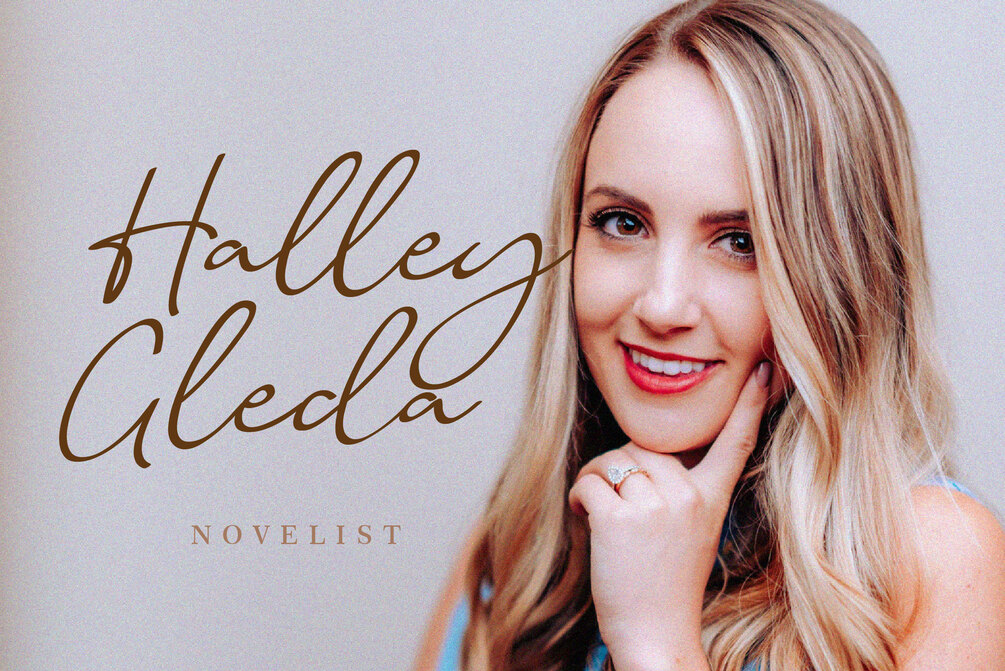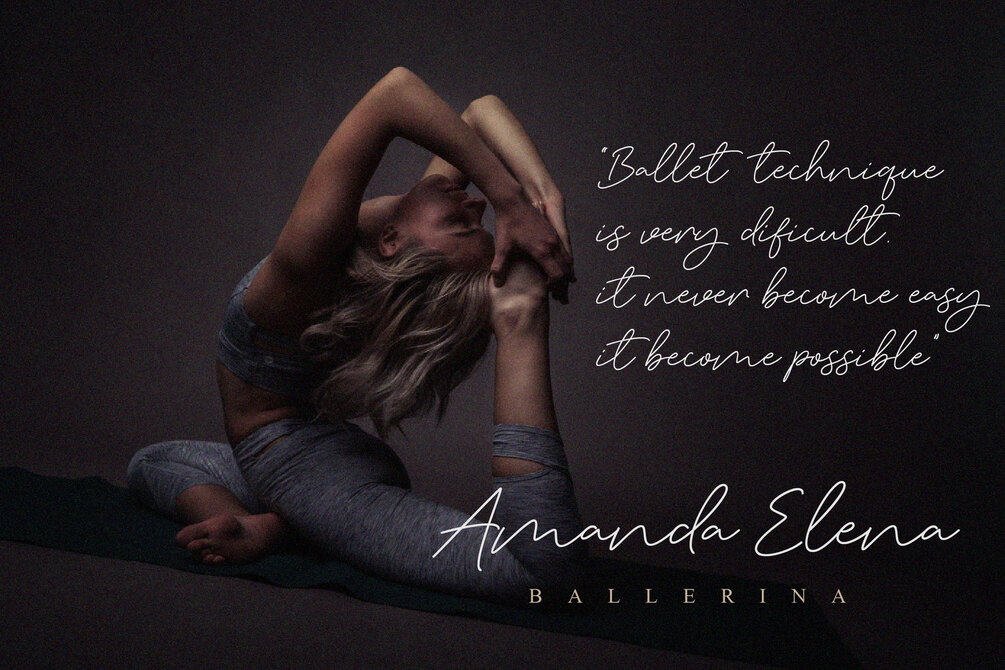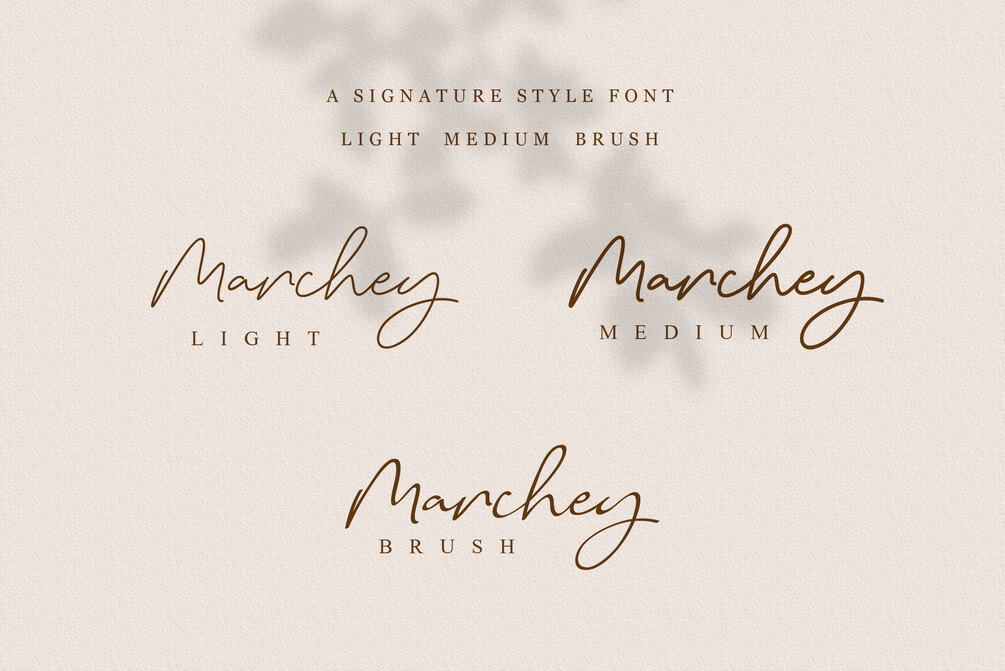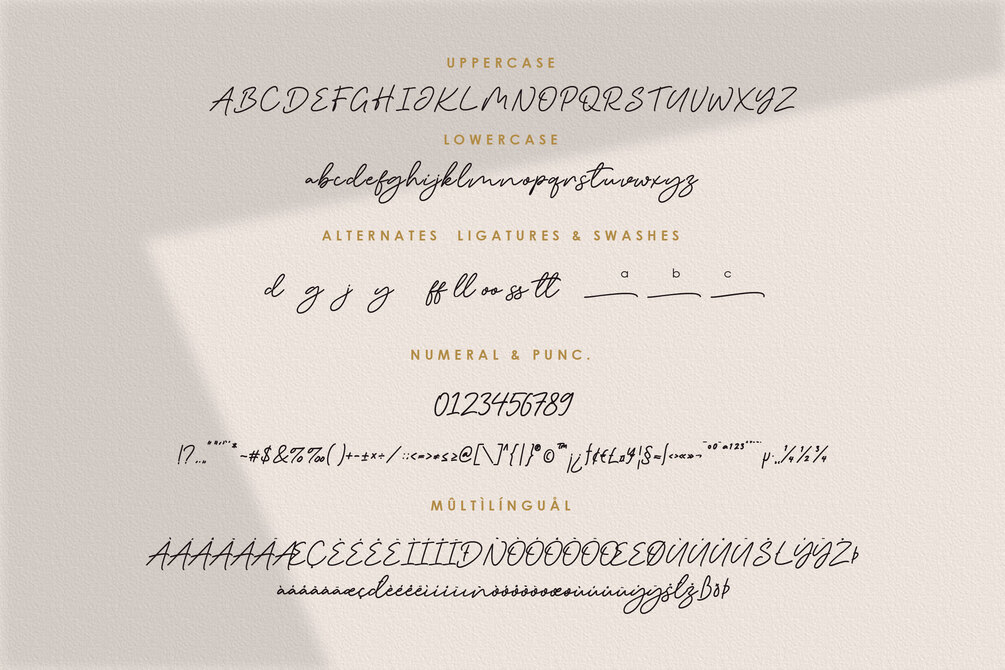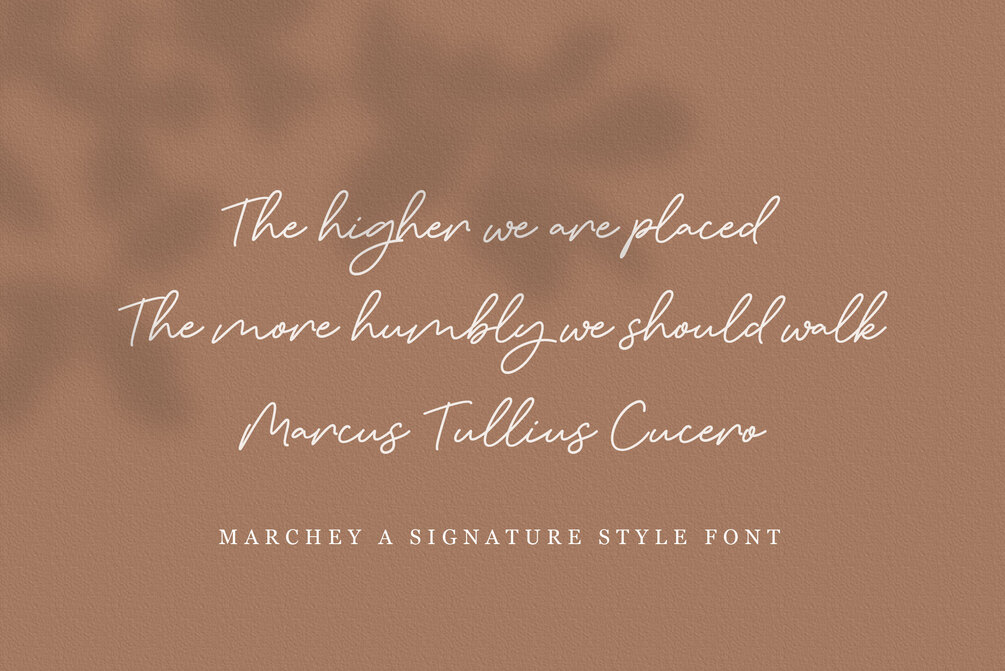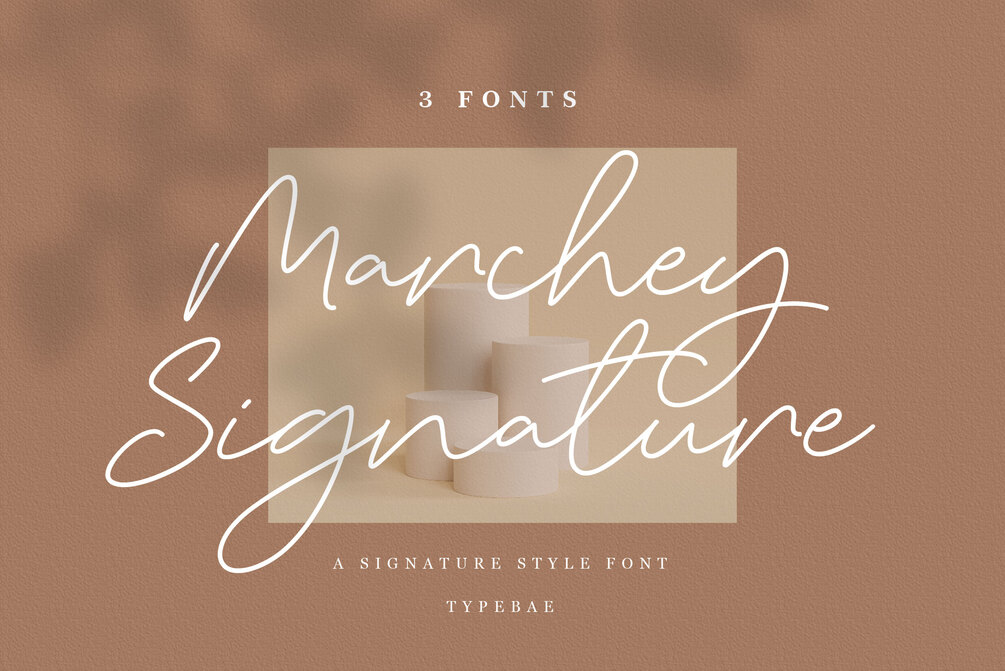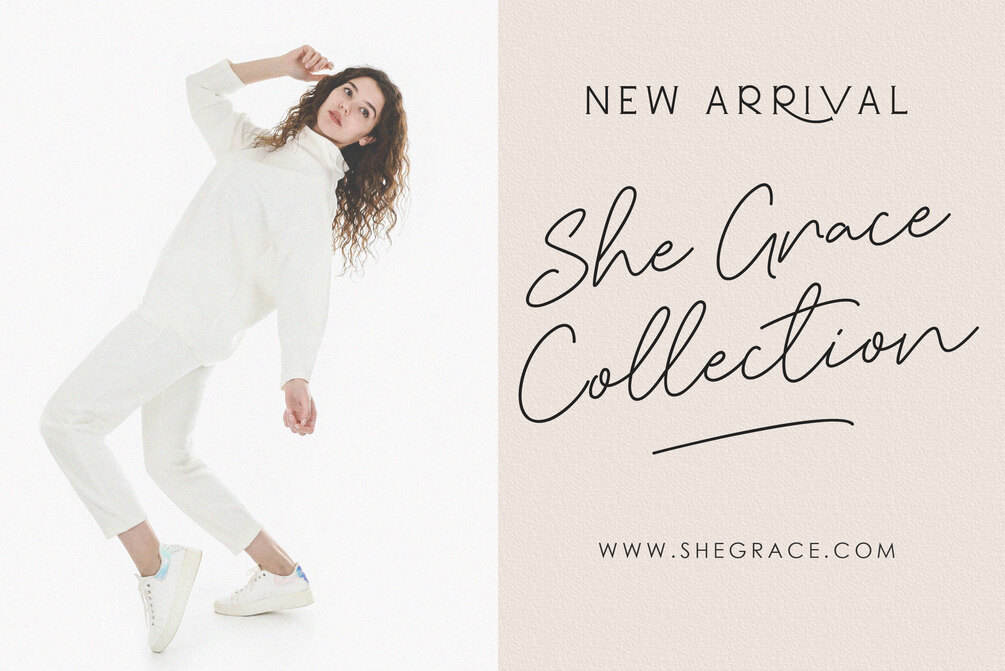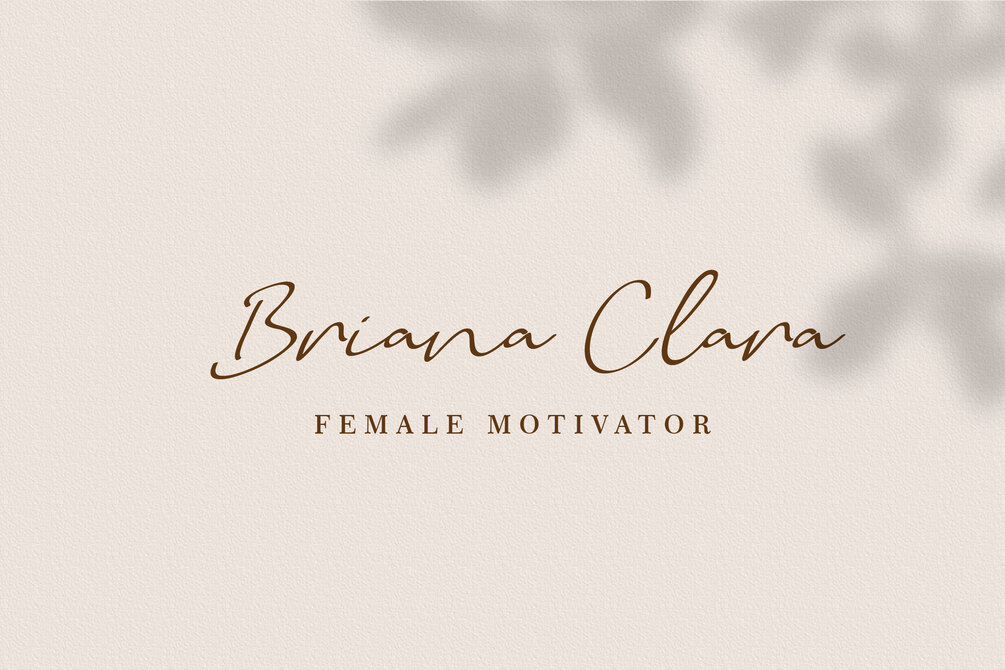
Marchey Signature
Marchey Signature is a versatile script font. Be mesmerized by its ravishing style and use it to create gorgeous wedding invitations, beautiful stationary art, eye-catching social media posts and more!
• Uppercase & Lowercase
• Numbers & Punctuation
• Alternatives & Ligatures
• Multilingual Support